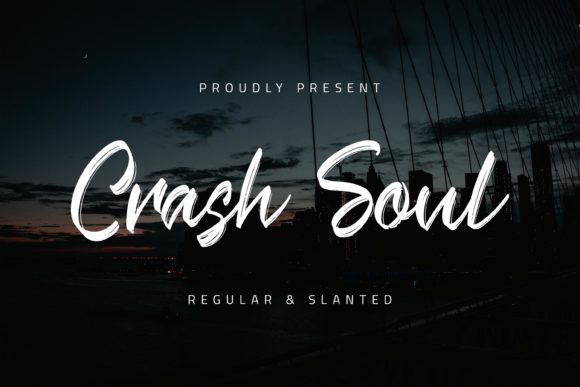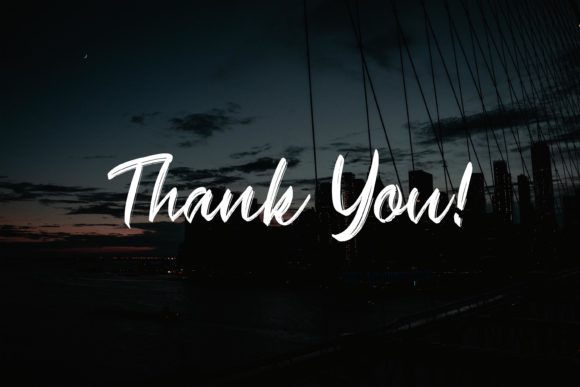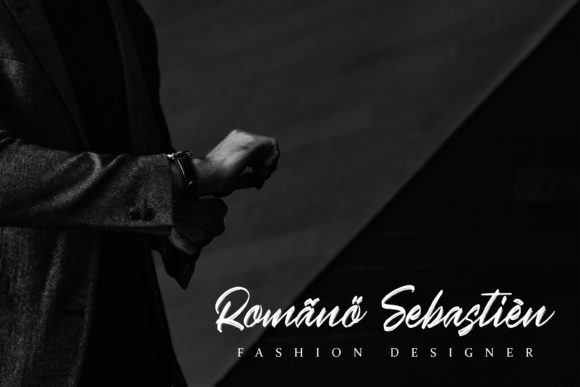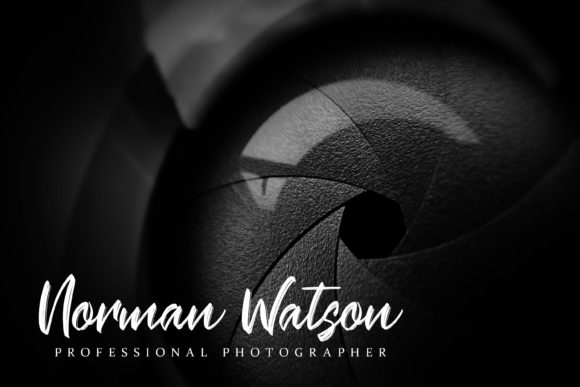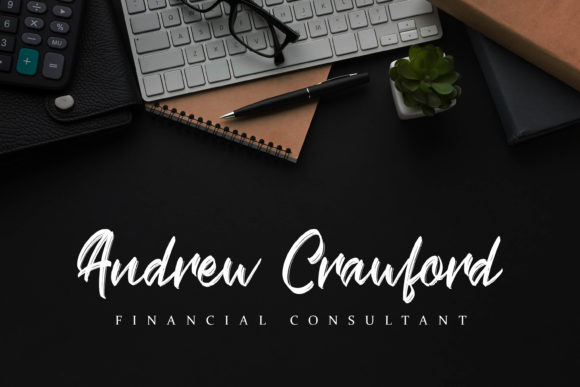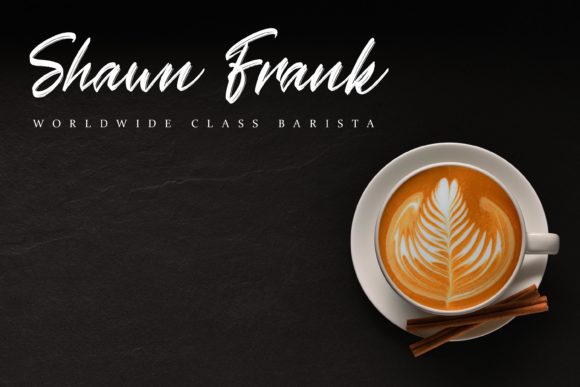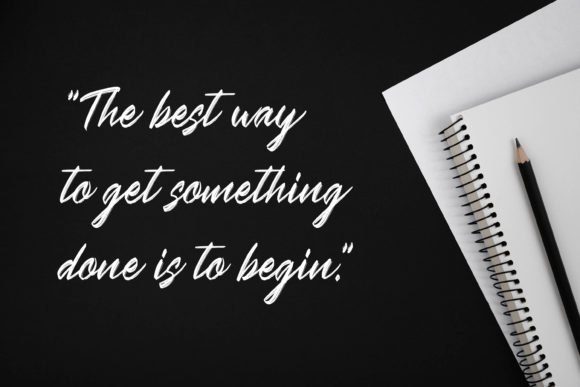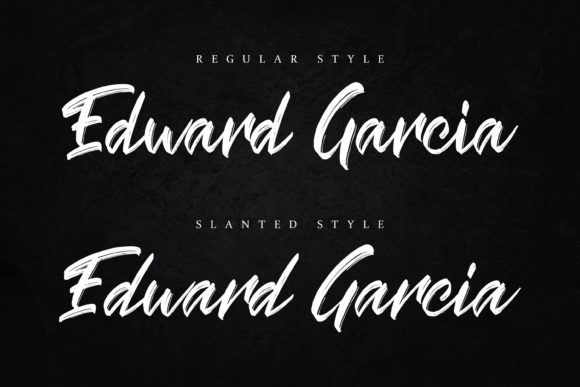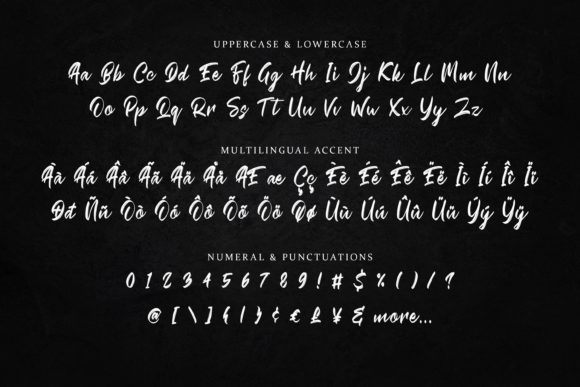
Crash Soul Font
About Crash Soul Font
Crash Soul is a stunning handwritten font, created with the help of a brush pen. It feels incredibly relaxed and flowing, perfect for a wide variety of projects. Fall in love with its incredibly versatile style and use it to create spectacular designs!